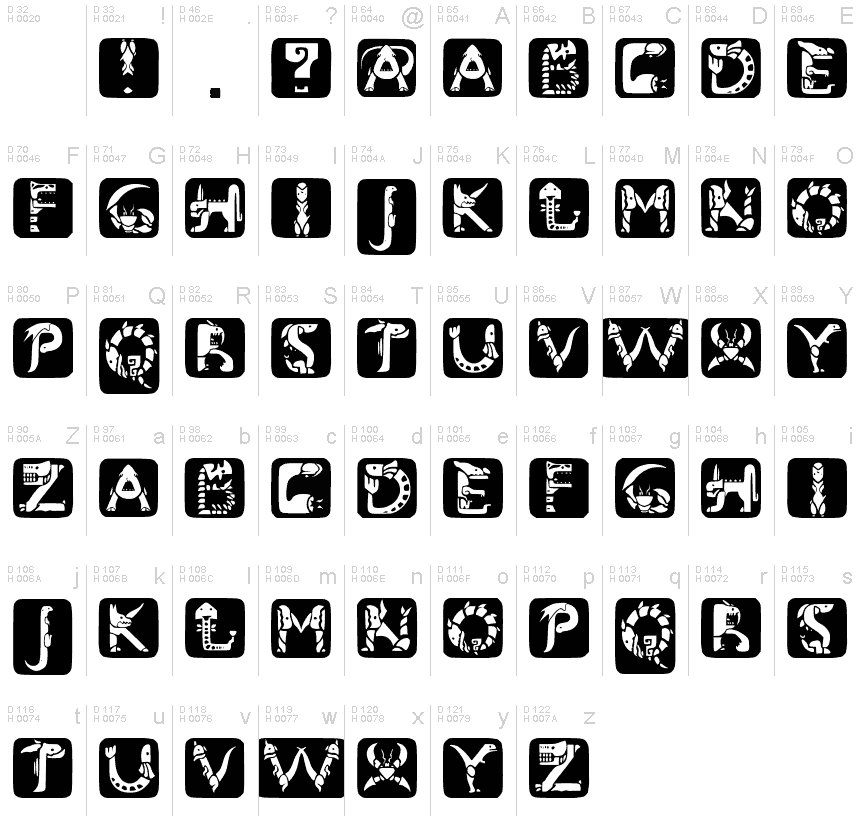
MonsterHunter
Monster Hunter is a bold, decorative font that exudes an air of strength and power. Designed by Shujal, this display font features sharp, angular letterforms that capture the essence of its namesake.
The thick, weighted strokes and striking serifs lend the font a rugged, primal aesthetic, making it well-suited for a variety of high-impact applications, from gaming logos and product packaging to event branding and editorial design.
Monster Hunter's distinctive visual style commands attention, making it an excellent choice for those seeking a font that strikes a delicate balance between raw intensity and refined sophistication.
I downloaded the image of the font from http://www.almostzara.com/wp-content/uploads/monster_hunter_font_design_by_terekjet-700x509.jpg and used FontForge to create a vectorized font. Additionally, I added several glyphs (!, ?, @) to the font myself.